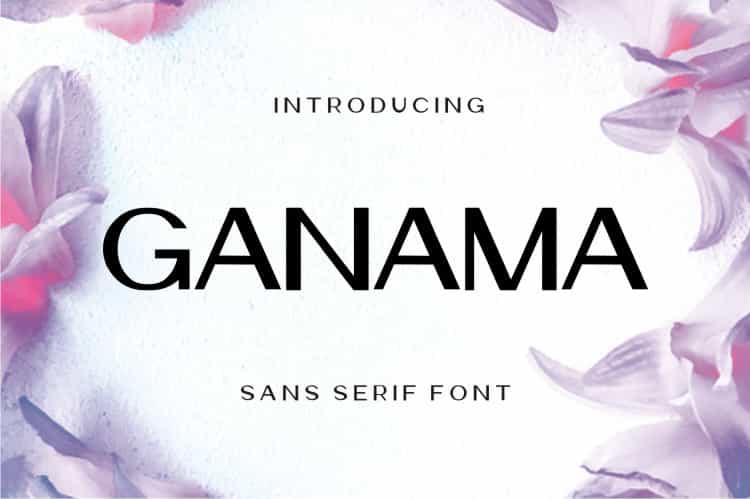
Ganama is an elegant simple, tall and elegant sans serif font designed specifically to suit modern designs and applications. Each style was meticulously considered when creating Ganama; perfect for T-shirts, sportswear logos ads clothing designs as well as logo ads ads etc.